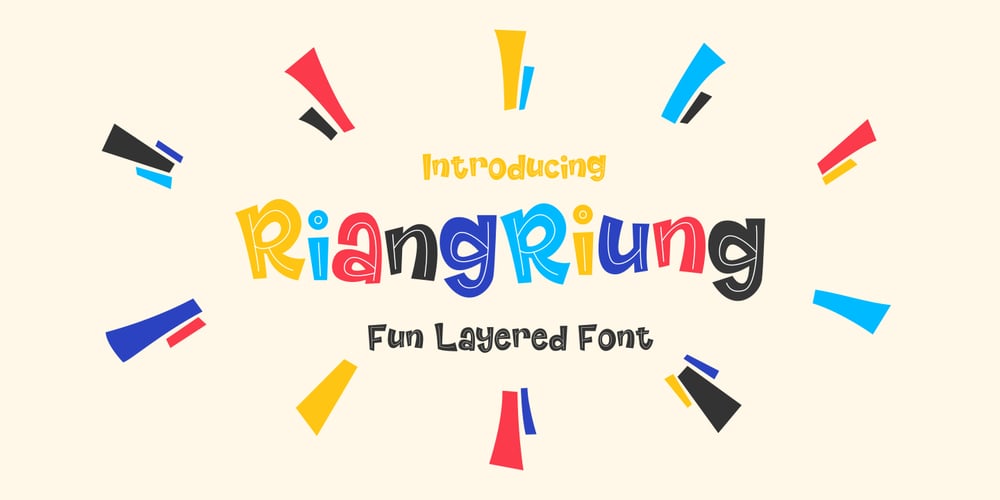
Riangriung Font Family was designed by Gumilang Anggara Ruslan and published by Gartype Studio. Riangriung contains 4 styles and family package options. Fun and friendly characters gave us the inspiration to make this funny layered font family called Riangriung, which means fun, happy, joyful, colorful. Riangriung comes in 4 different styles for you to enjoy and play with!